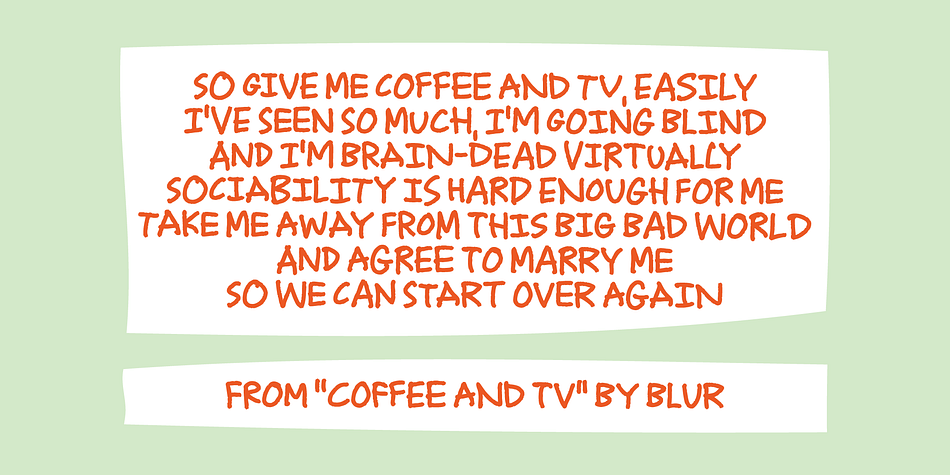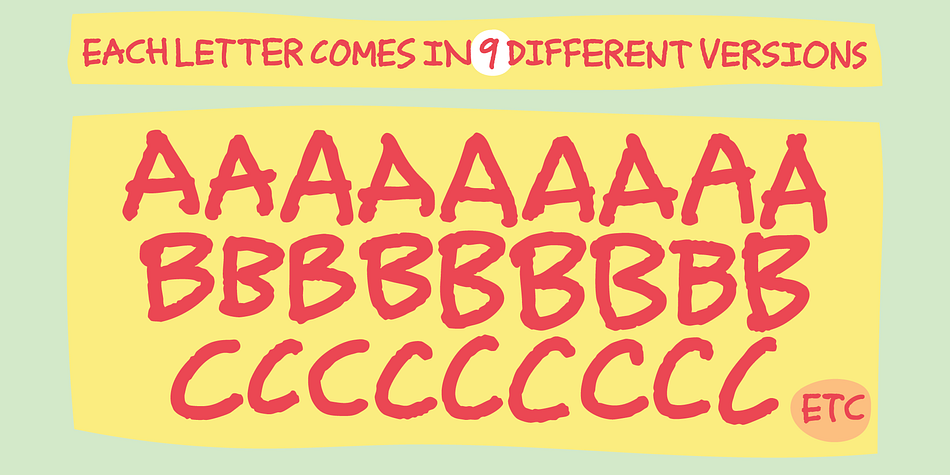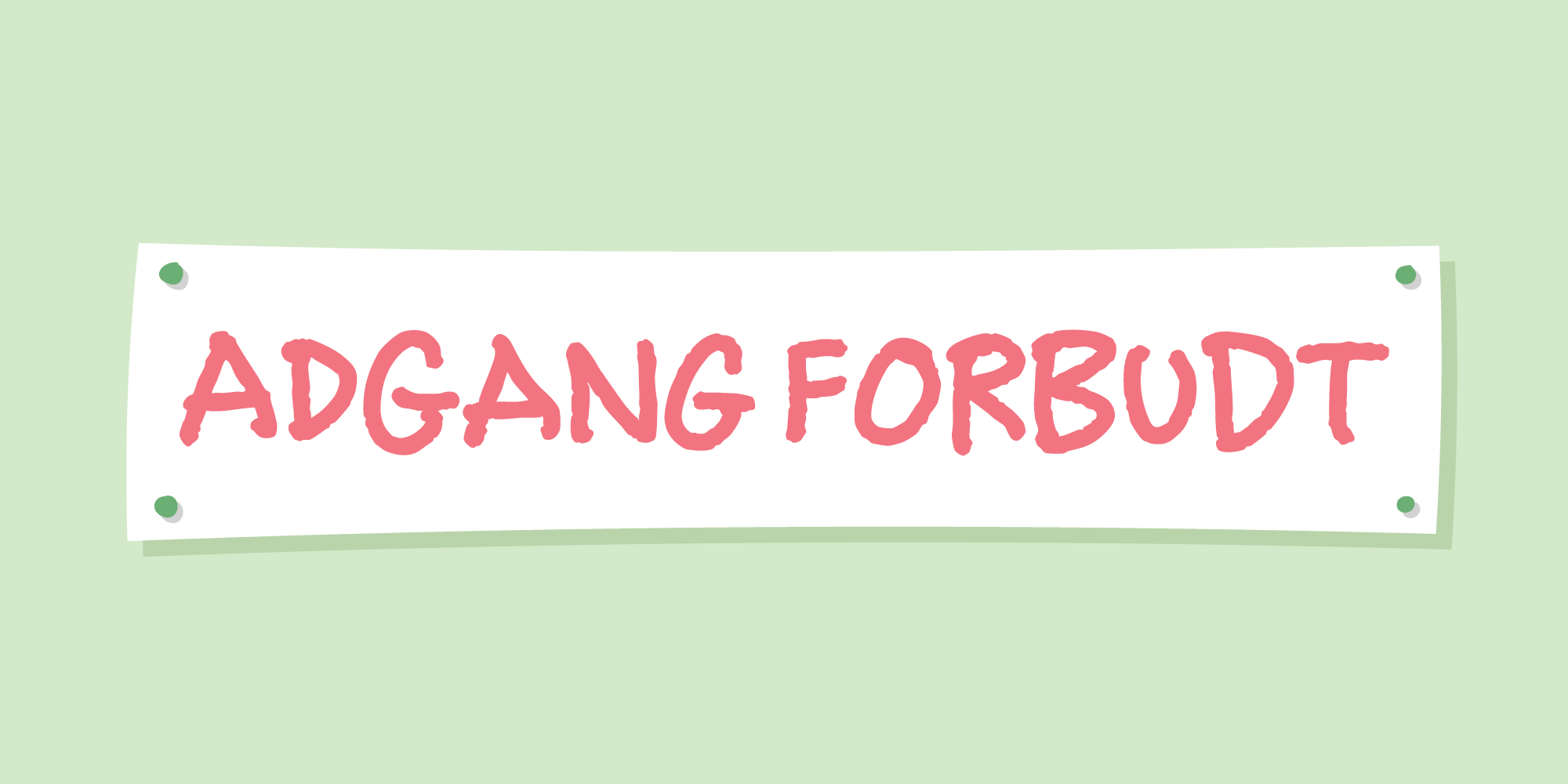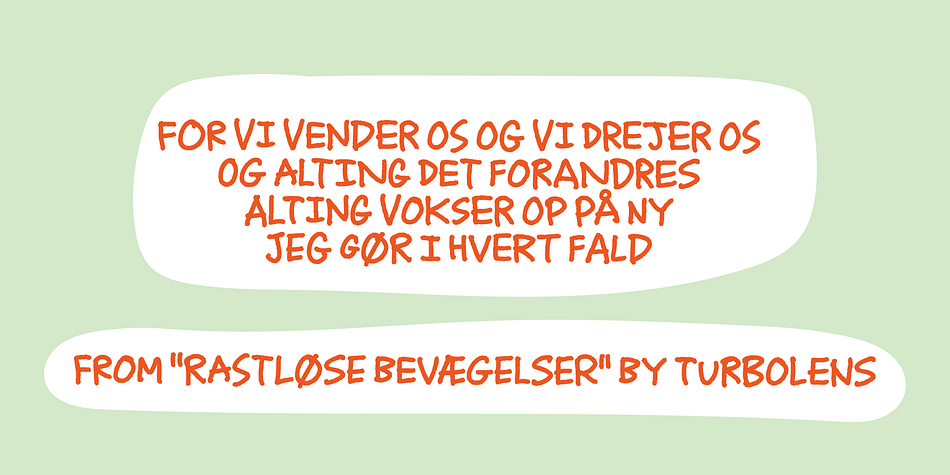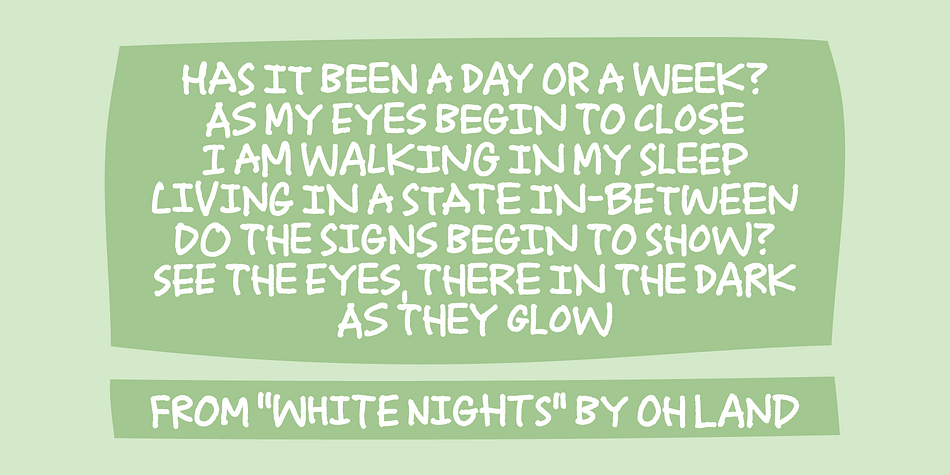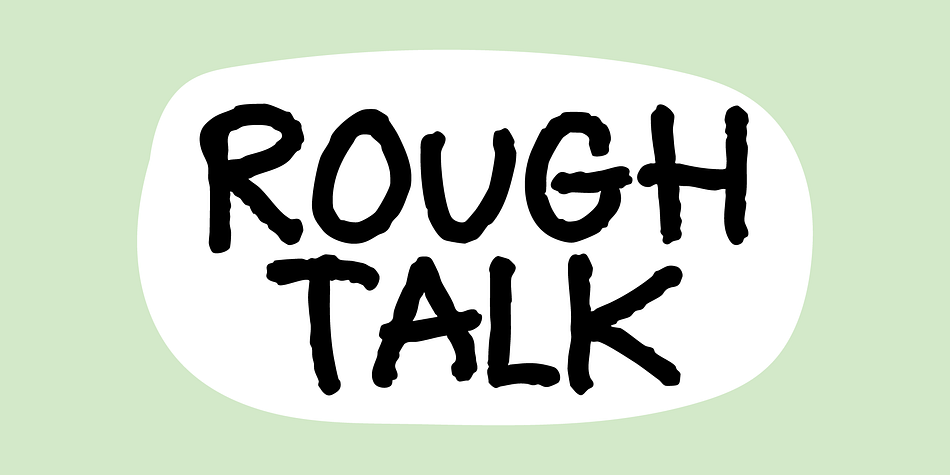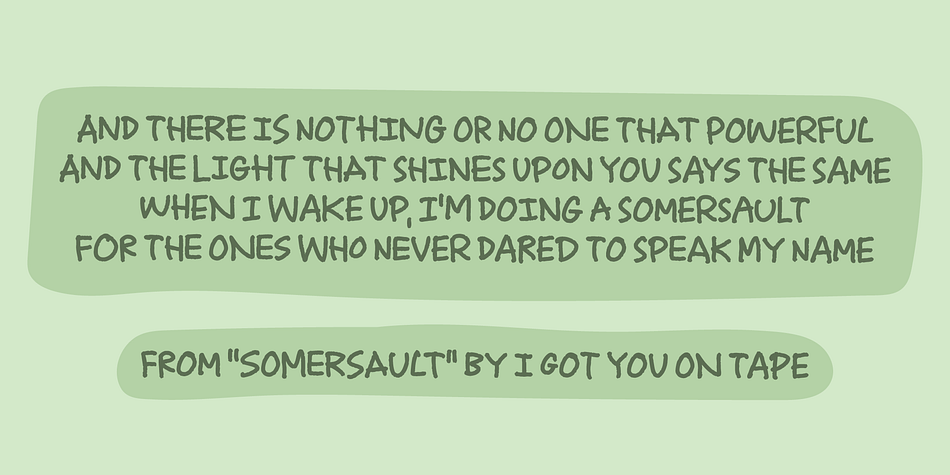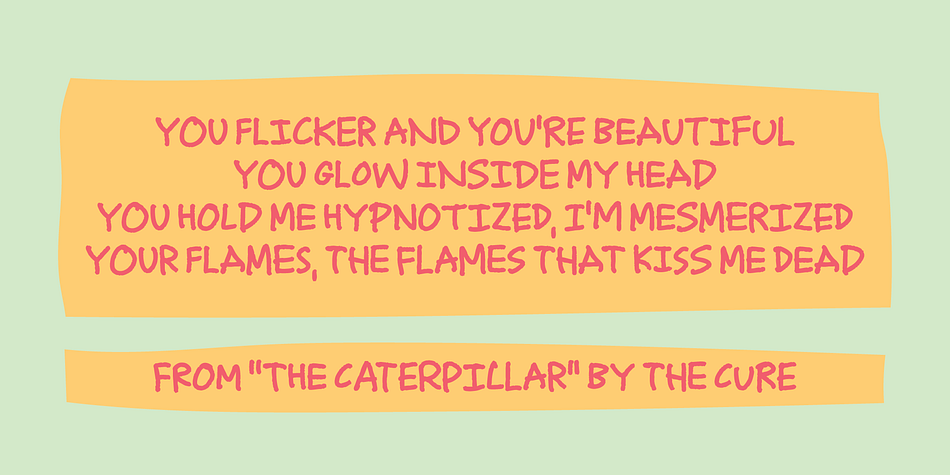
Adgang Forbudt
Designed by Jakob Fischer, Adgang Forbudt is a brush display font family. This typeface has two styles and was published by Bogstav.
We have a park nearby, where I usually walk the dog. Since there has been planted new bushes and trees, nature needs some time to strengthen. Therefore there was a sign saying “No entrance” - but people (and dogs!) didn’t seem to understand, so the newly plants was tramped to the ground. A few days after, several (like in 50!) signs saying “NO ENTRANCE” was put up. They were handwritten, and this time it worked! No dogs or people did enter! Oh, by the way … “Adgang Forbudt” means “No entrance” in danish :)